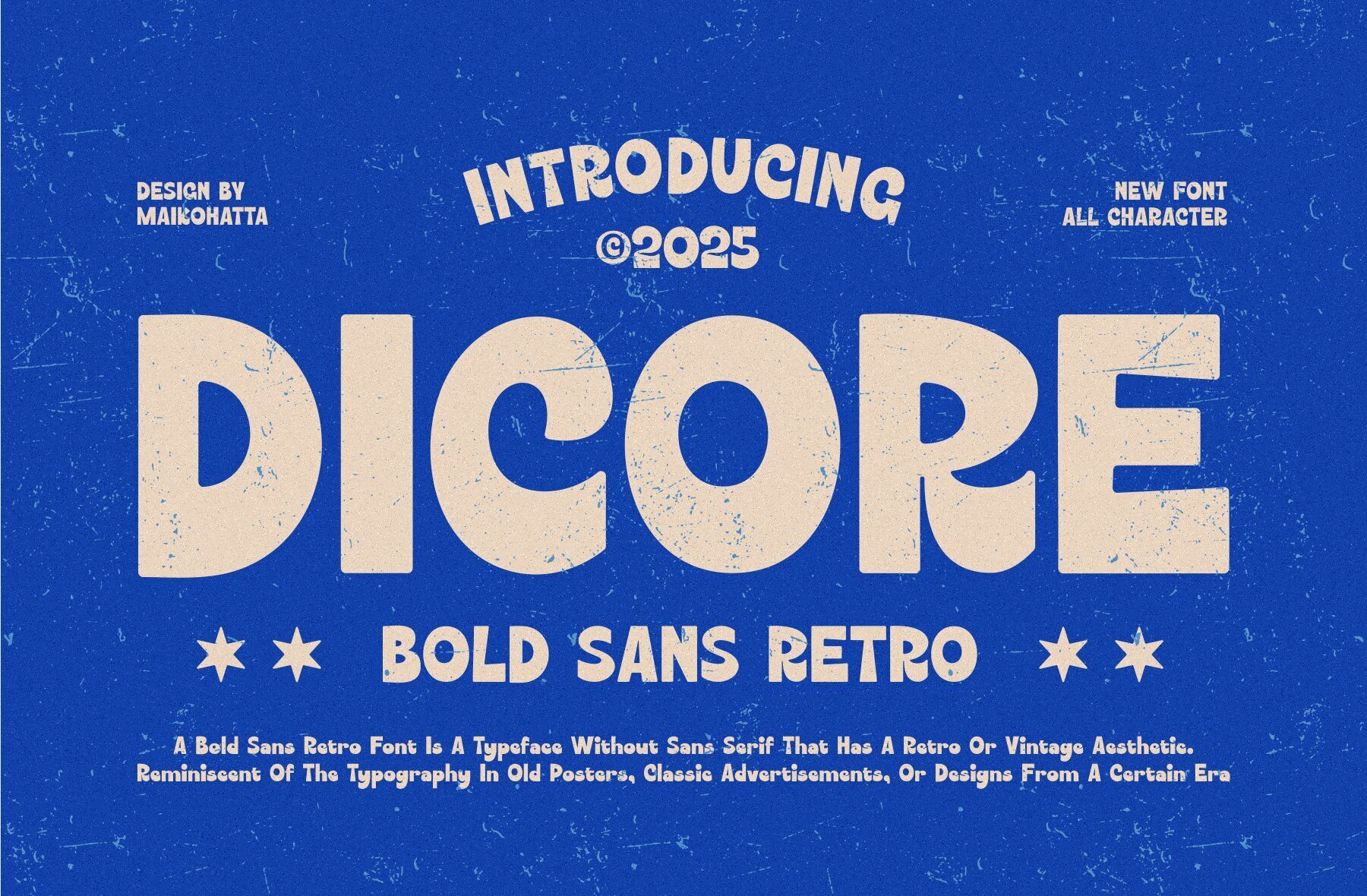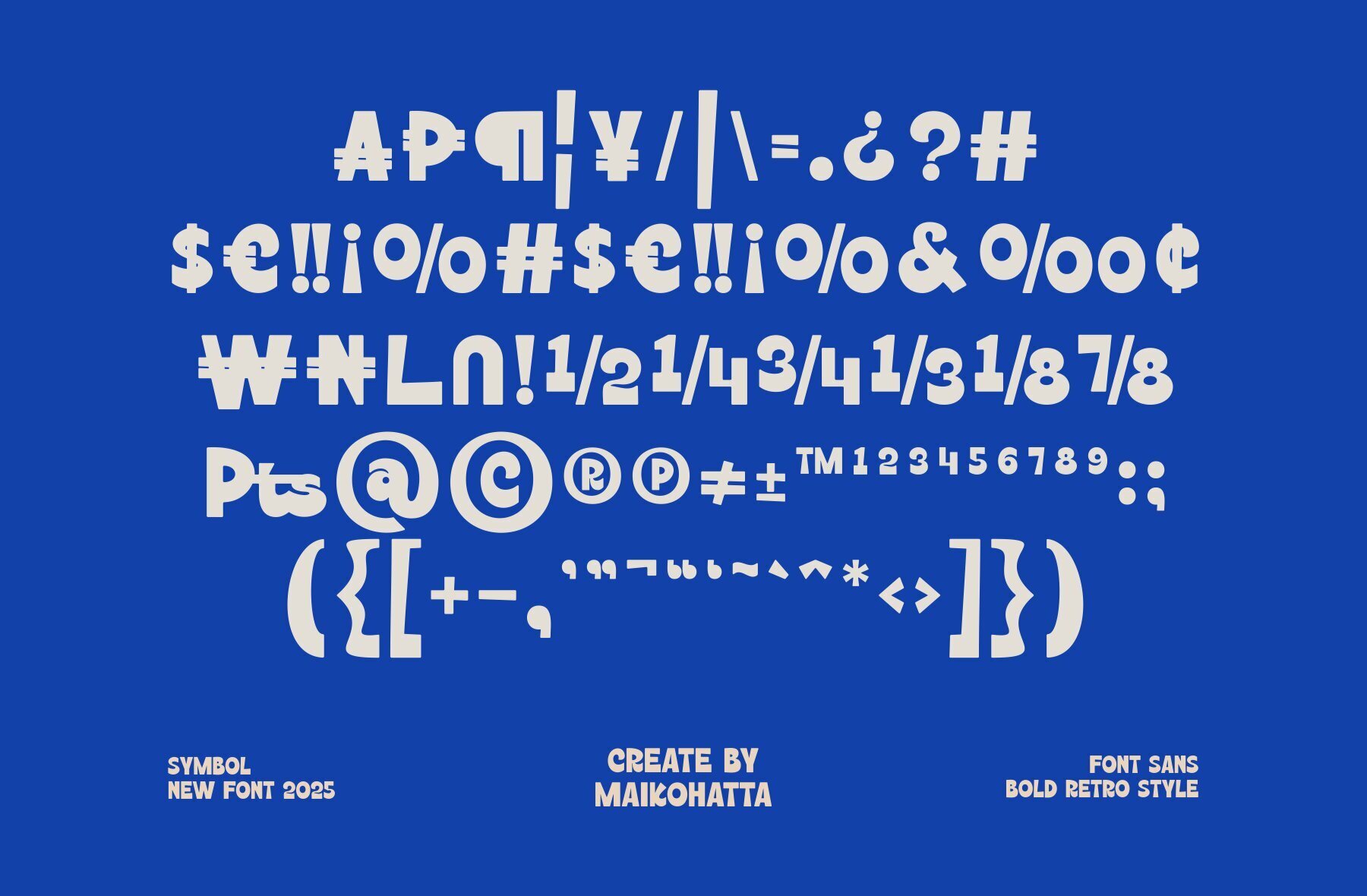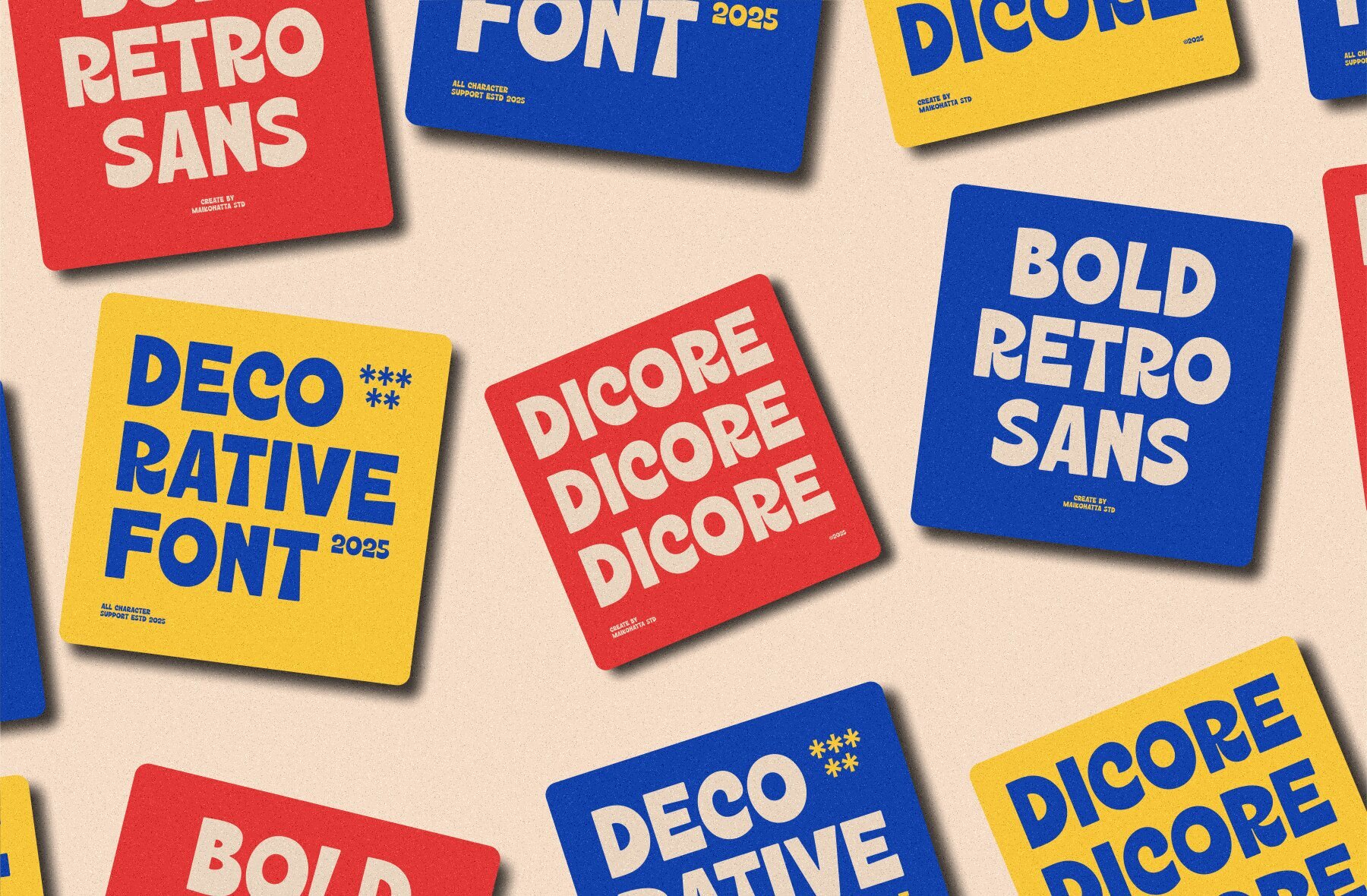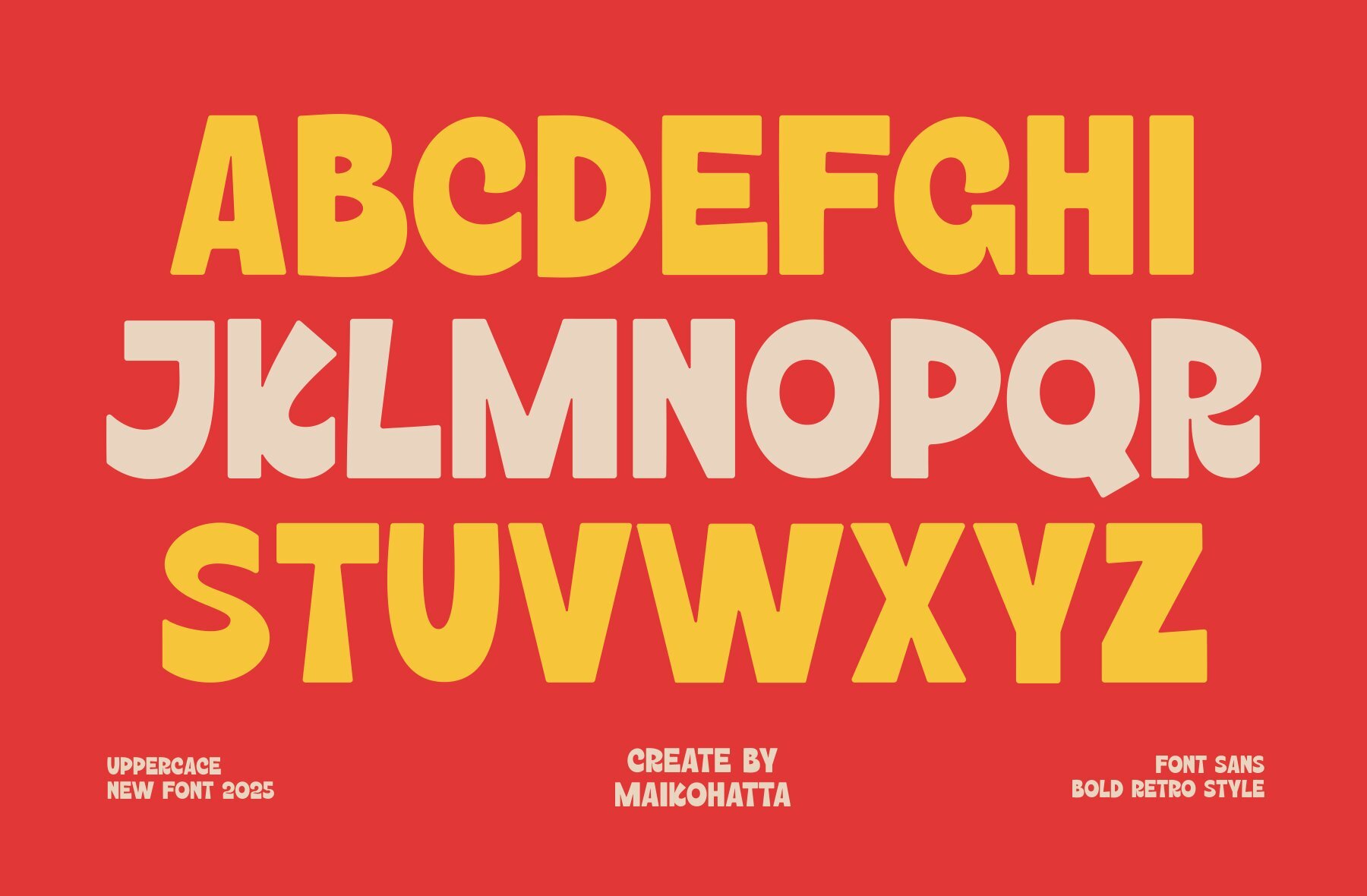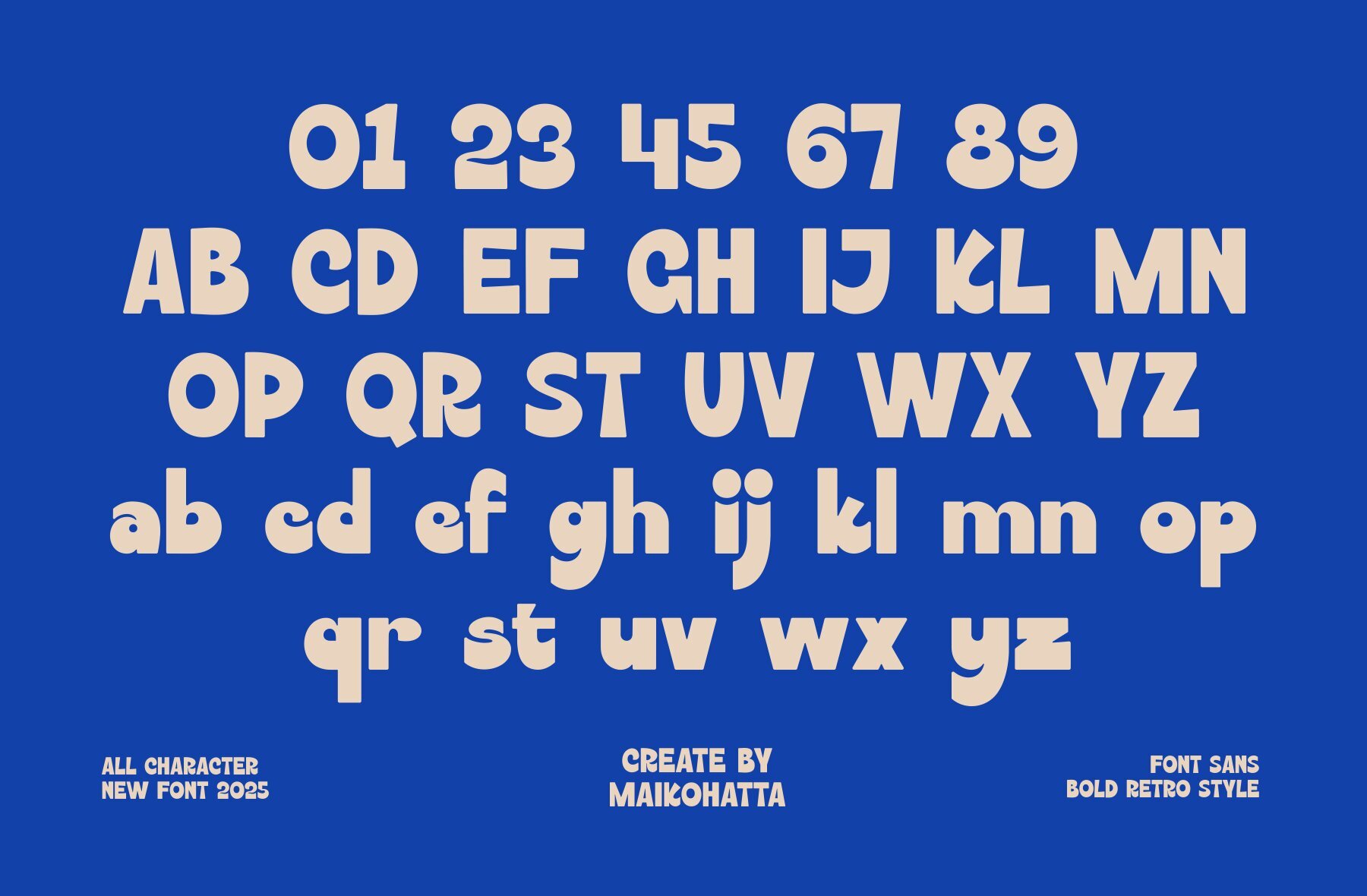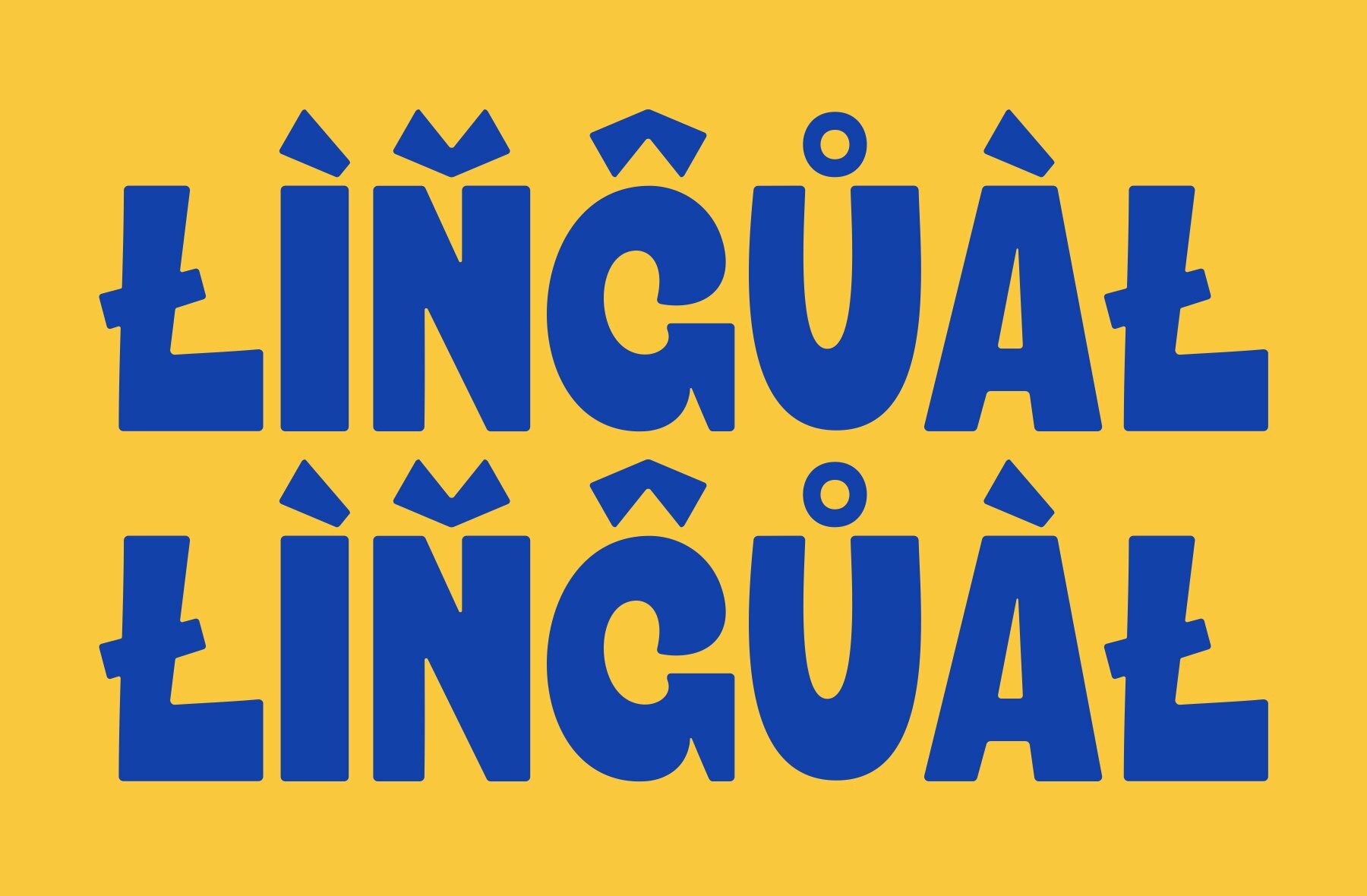
Dicore Font
DICORE
Dicore captures the essence of joy and cheerfulness through its bold, handwritten style. Inspired by the aesthetics of comics and cartoons, this font offers a vibrant and inviting look. Whether you're designing for entertainment or aiming to evoke a sense of fun, Dicore provides a strong visual impact. Perfect for projects targeting a young audience or those wishing to convey a lively atmosphere, Dicore stands out as a font that combines personality with functionality.Dicore: Bold Sans for a Playful Touch
Features of Dicore